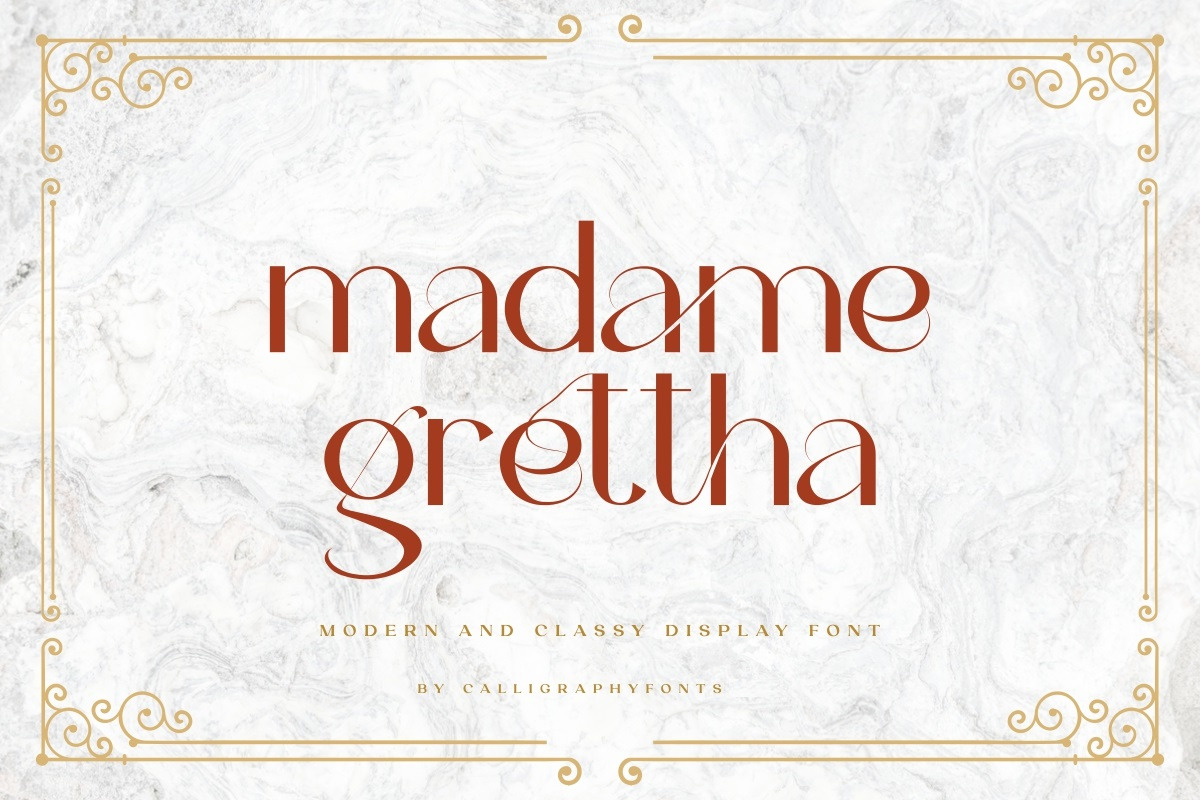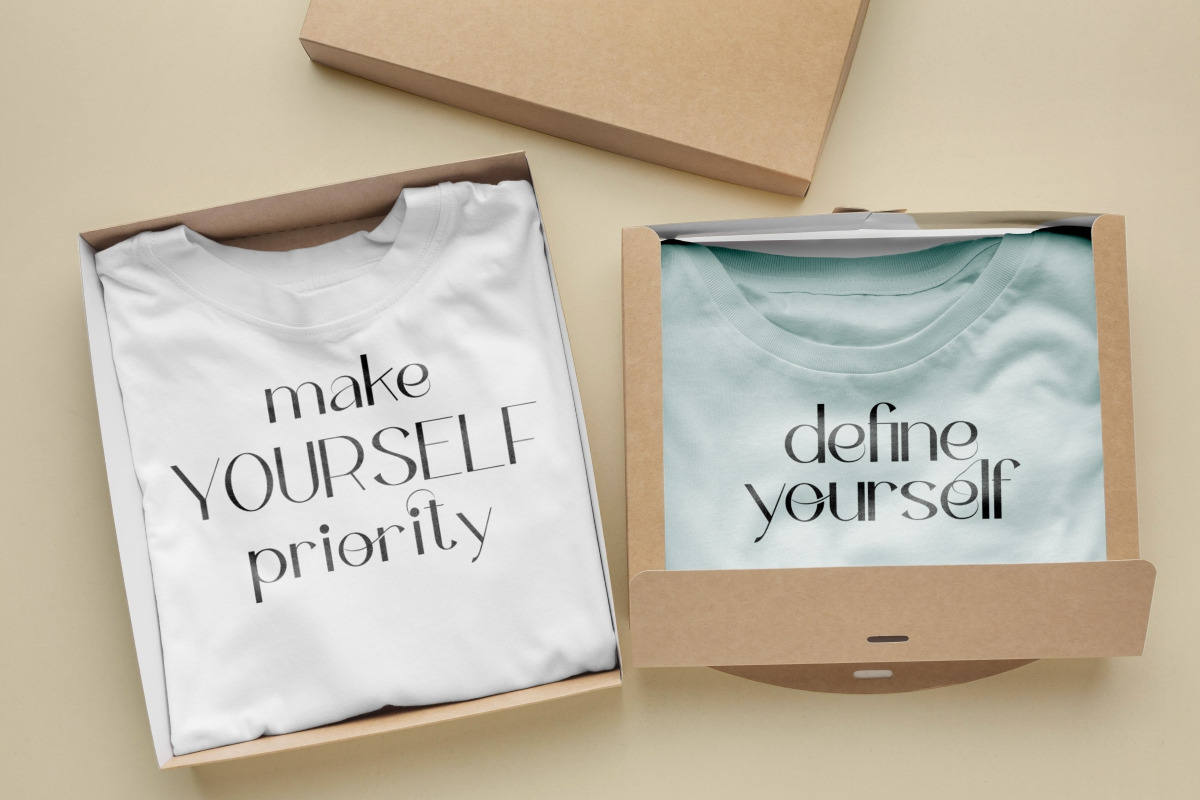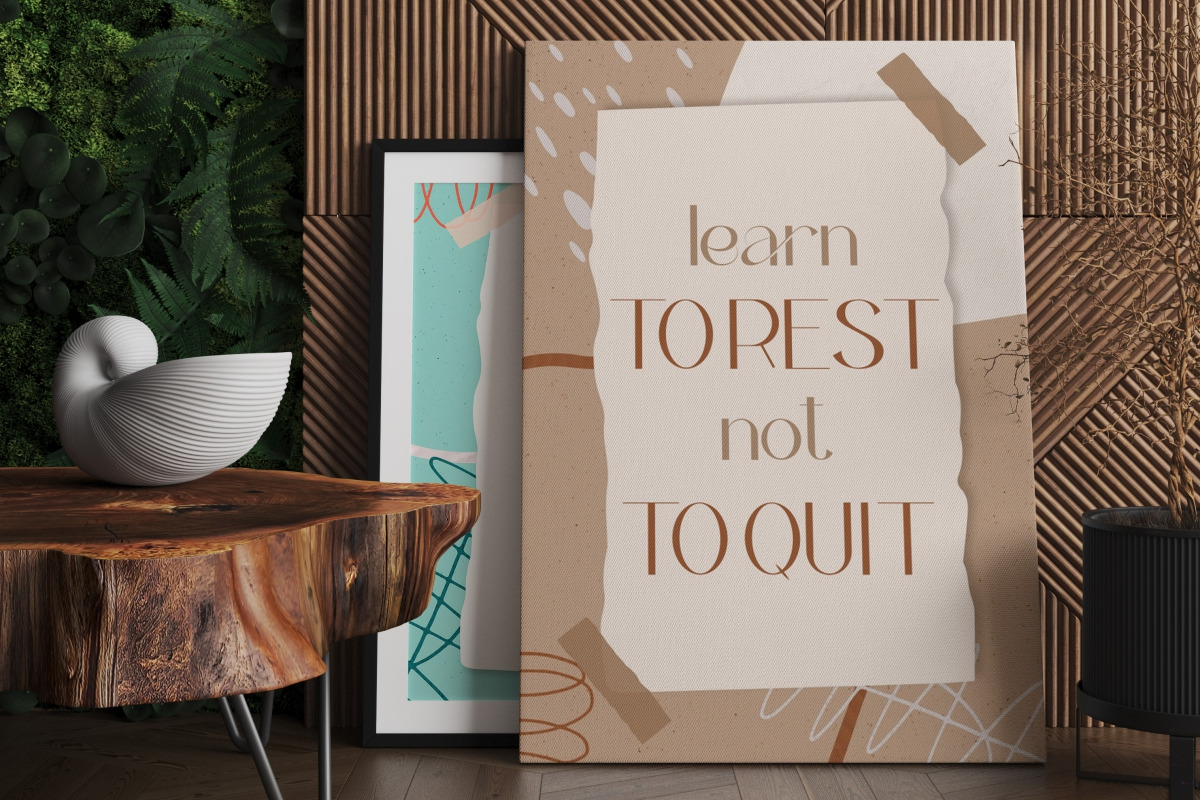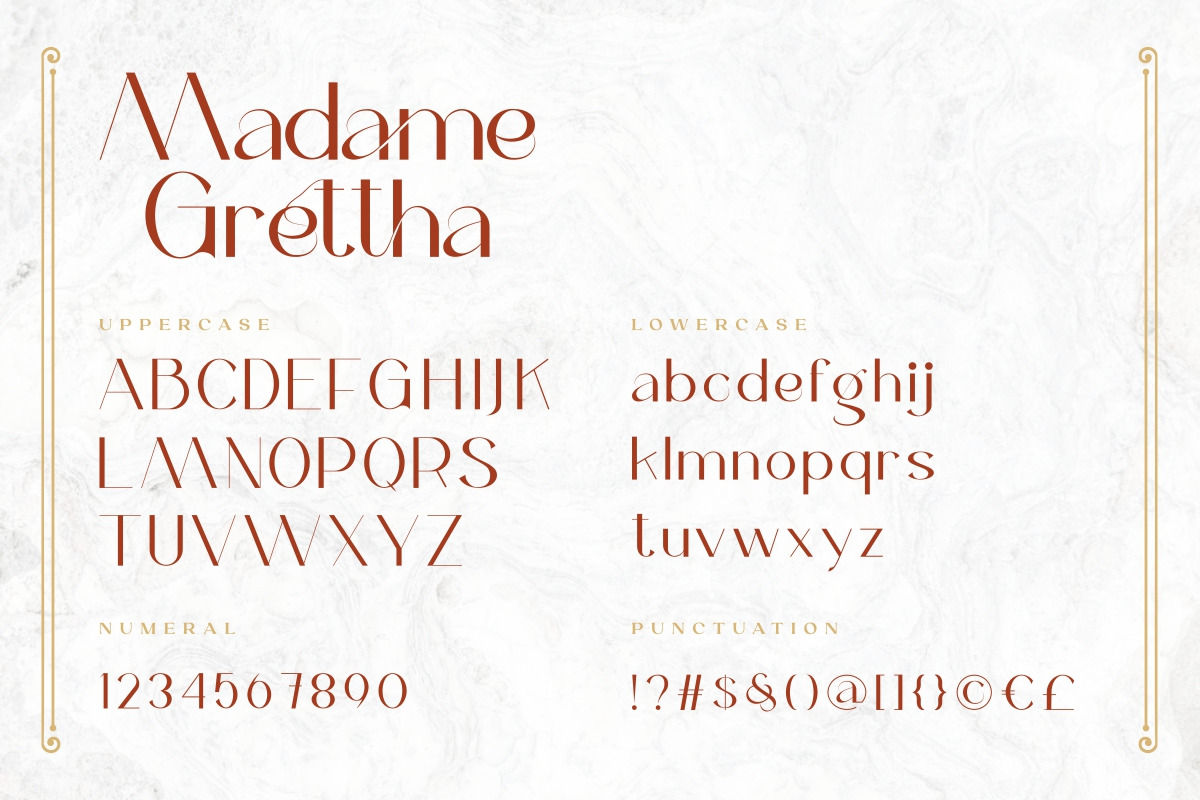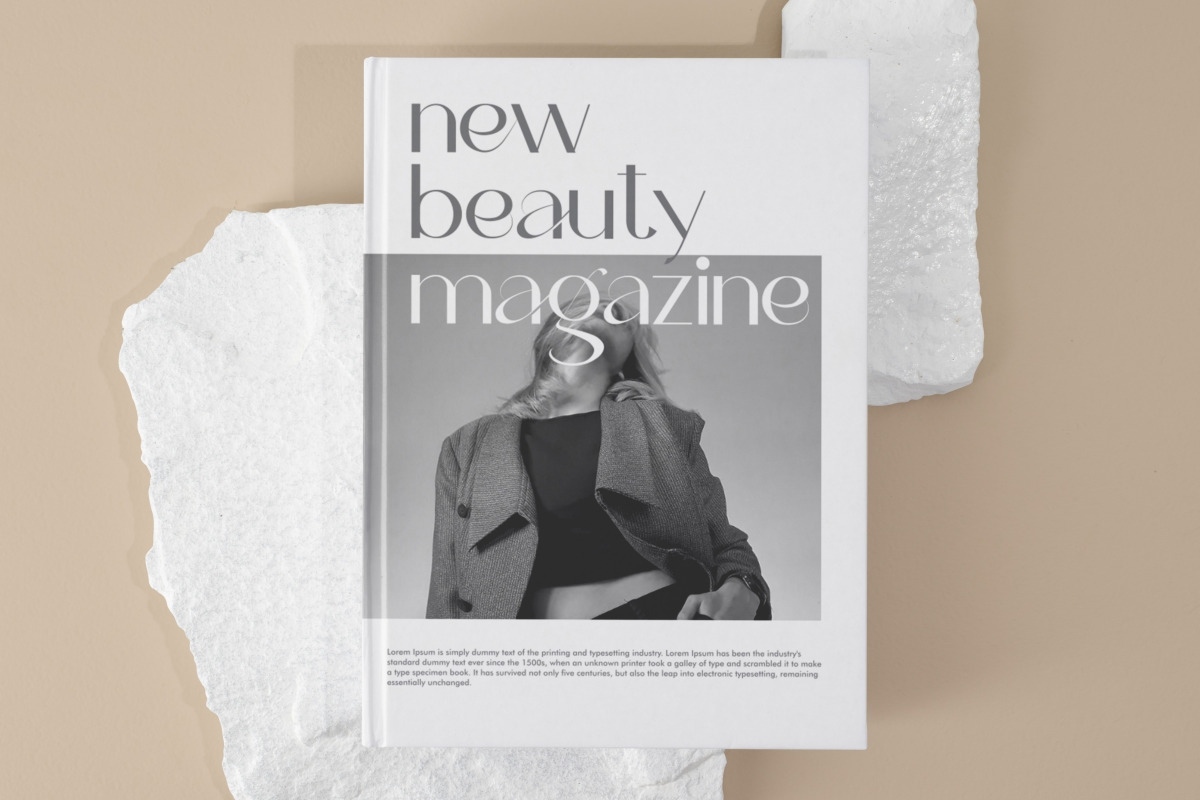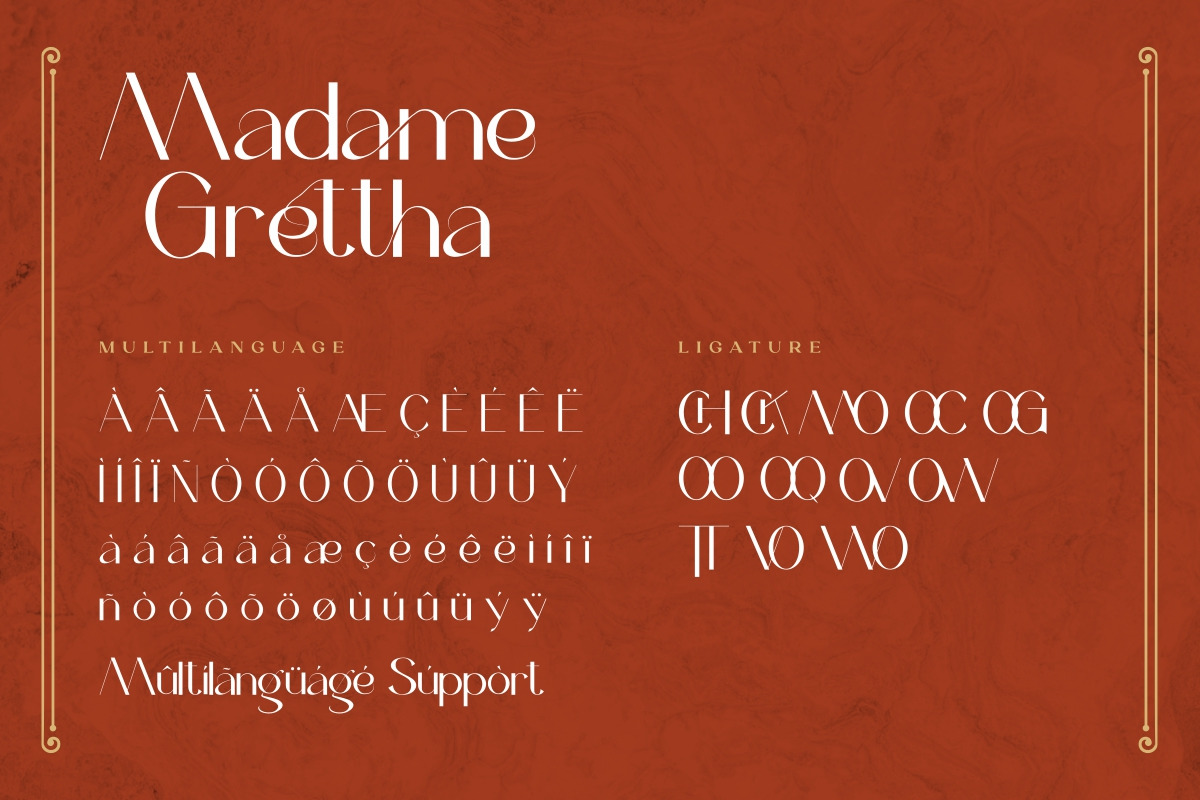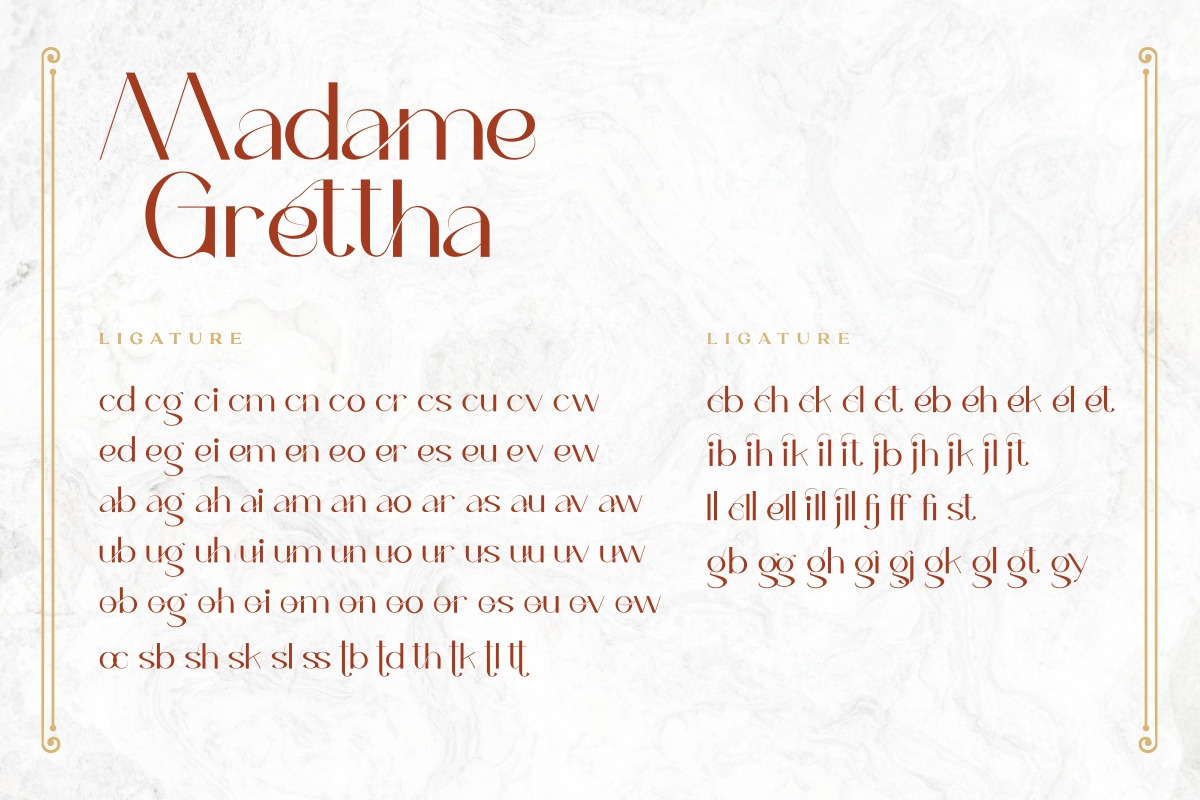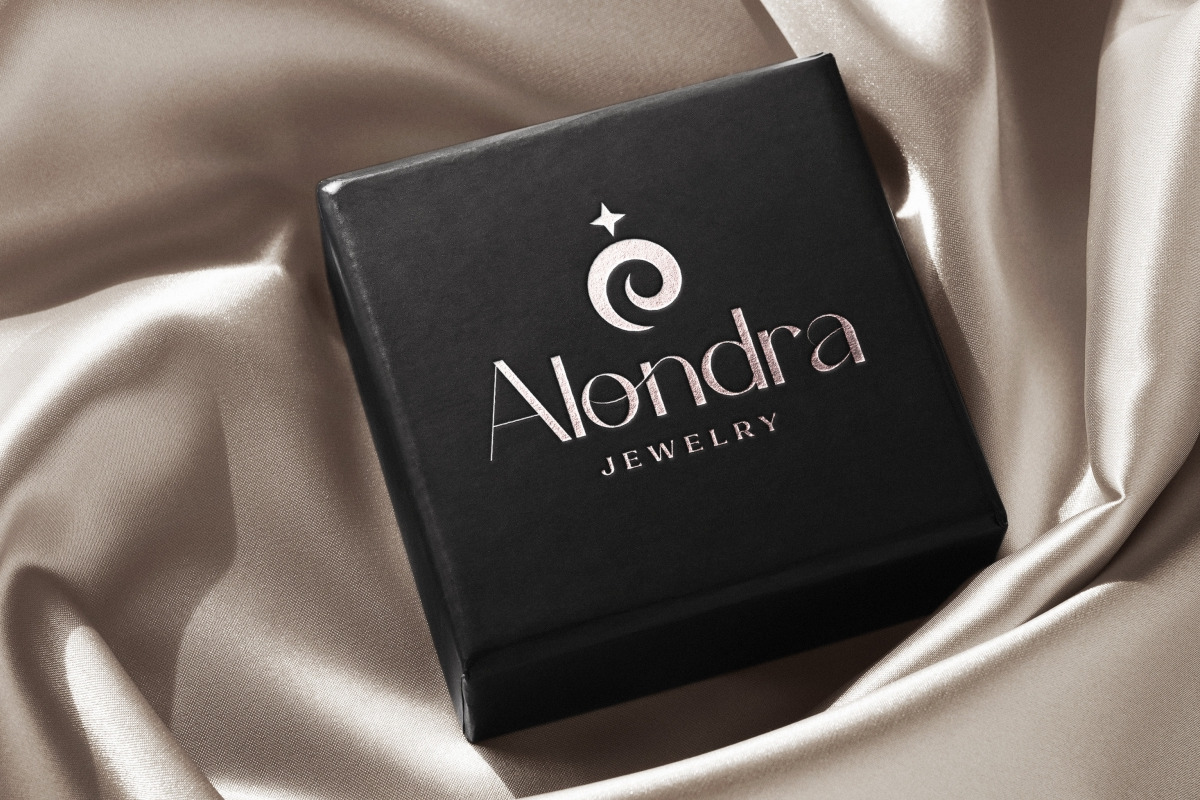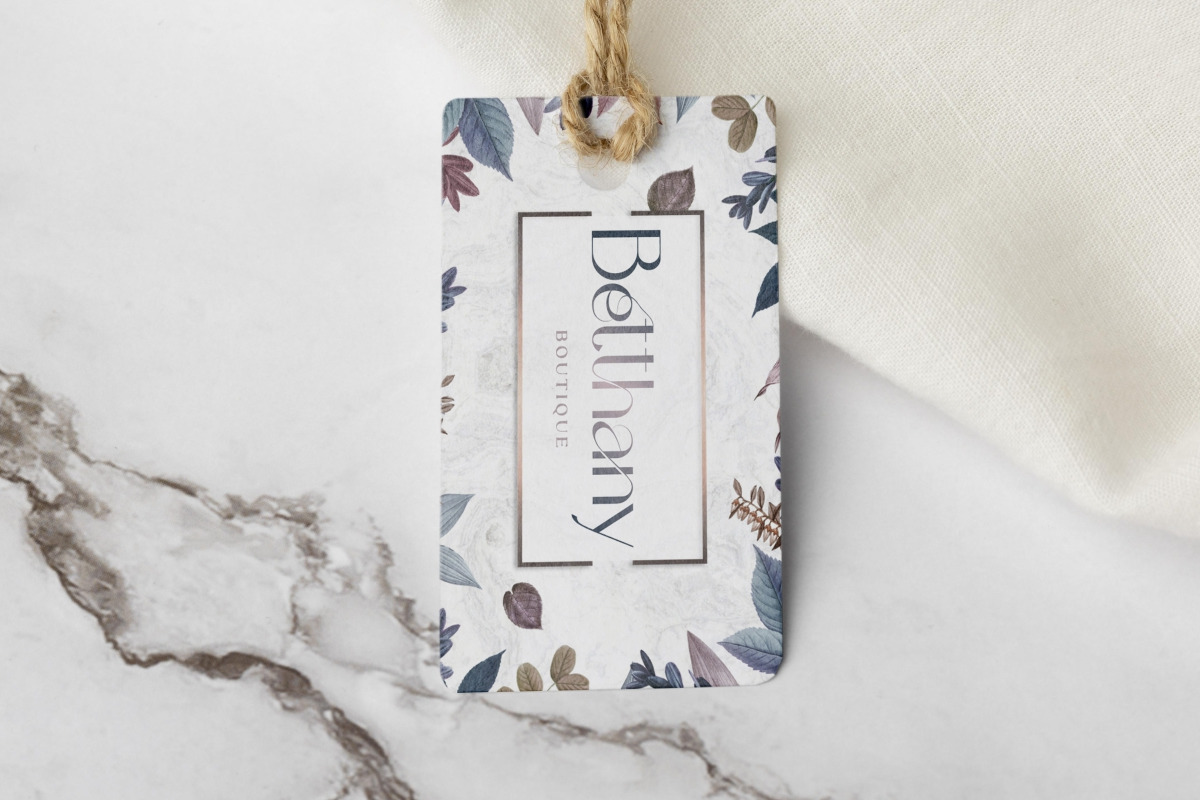
Madame Grettha Display Font
Madame Grettha Font is a classy serif display font with unique look. This typeface is perfect for beauty care, boutique, business card, elegant & luxury product, fashion brand, jewelry store, label, lettering art, logo, magazine design, headline, movie title, packaging design, quote, and many more!
Madame Grettha Font includes regular Uppercase and lowercase characters, Numeral, Symbol and Punctuation, with extra double letter ligatures in unique characters for the uppercase and lowercase add value of your brand to look more classy. Works on PC & Mac with simple installation, can be accessed in Adobe Illustrator, Adobe InDesign, Adobe Photoshop, and even works in Microsoft Word. Itβs Encoded PUA Character which means can be accessed completely without additional design software